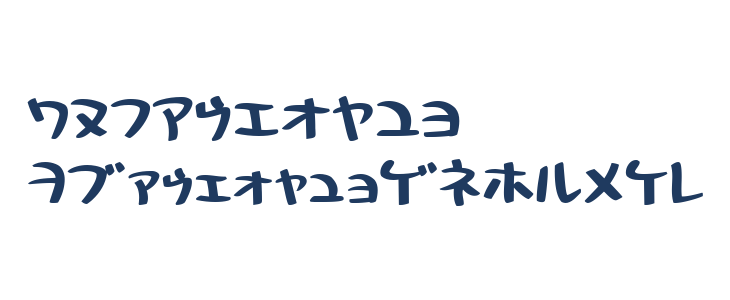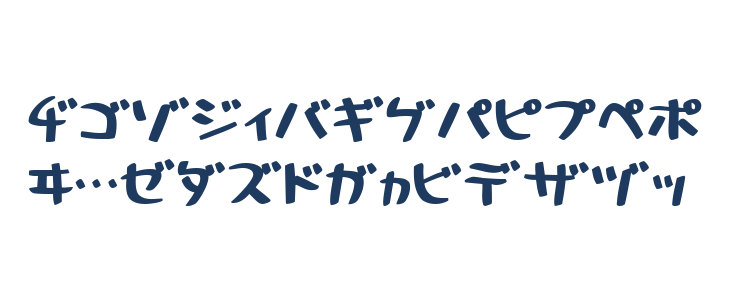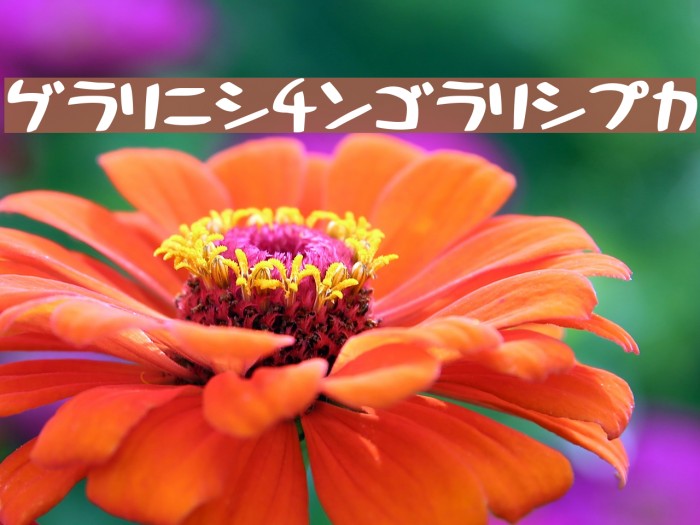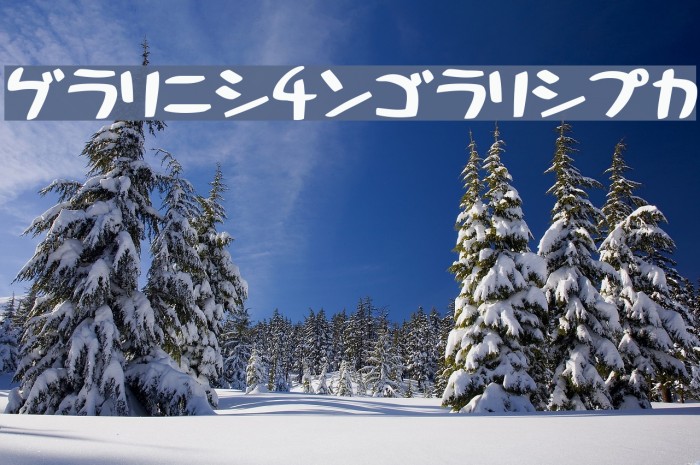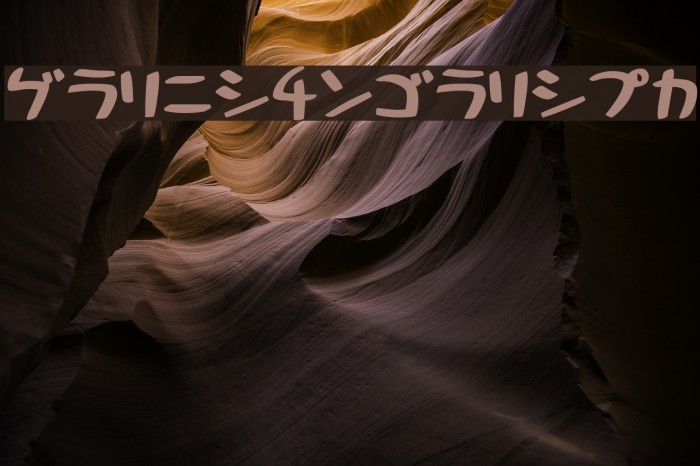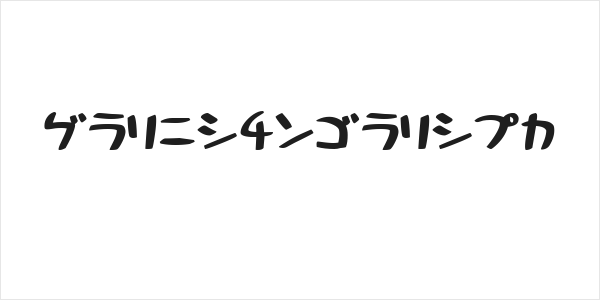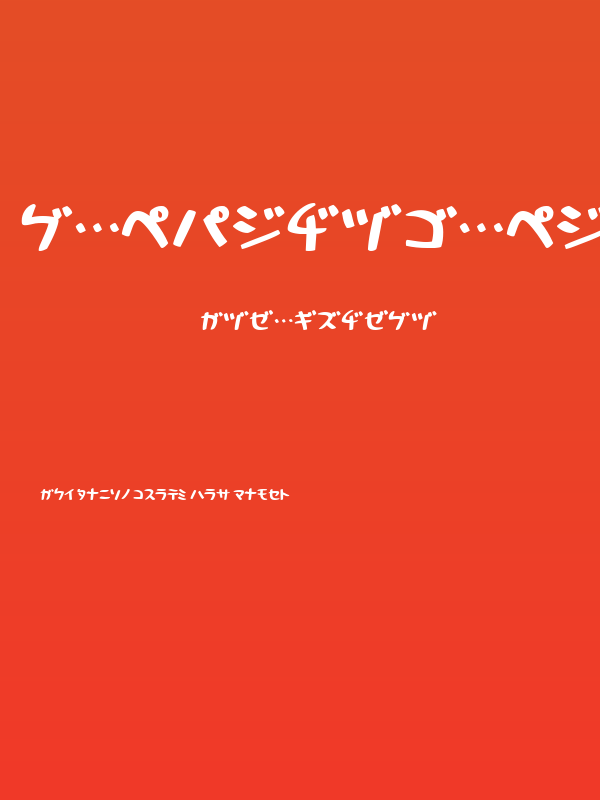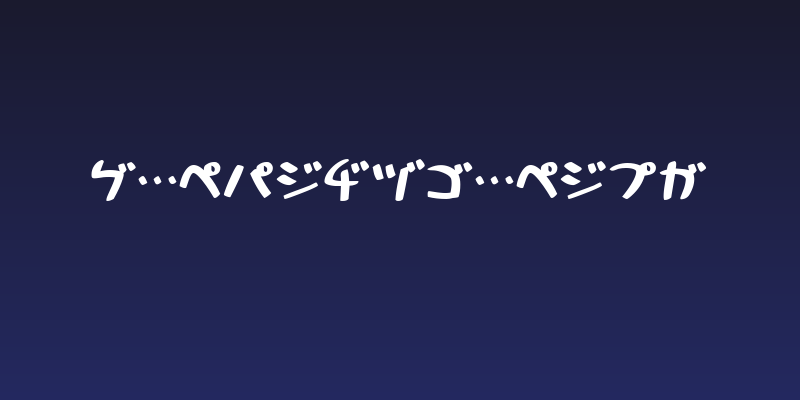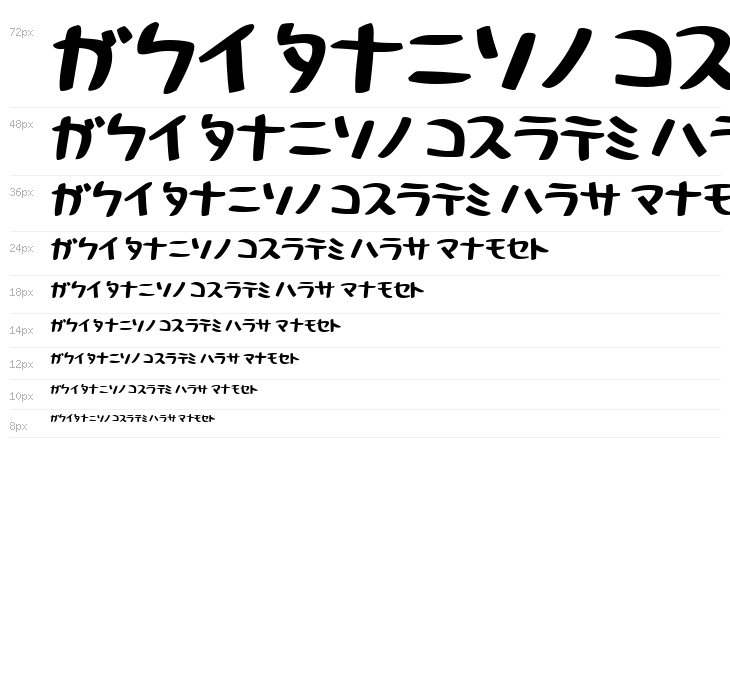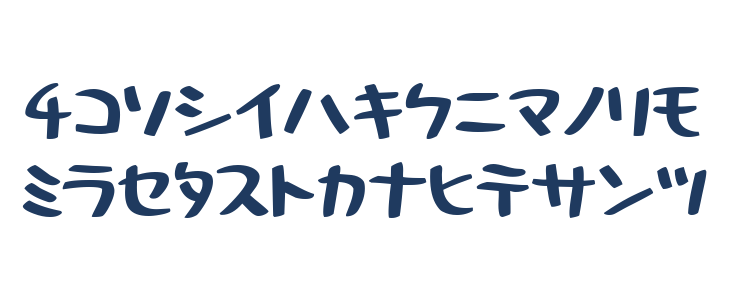
HolidayBoldKt Font
HolidayBoldKt Description
This font features a playful and bold style with a handwritten appearance. The characters are slightly slanted, giving a dynamic and energetic feel. The strokes are thick and rounded, contributing to a friendly and approachable look. The overall design is informal, making it suitable for creative and fun projects. The spacing between characters is relatively tight, enhancing the compact and cohesive appearance of the text.
| Use Case | Logos, Headlines, Informal Text |
| Proposed Projects | Ideal for children's books, playful branding, greeting cards, and informal invitations. |